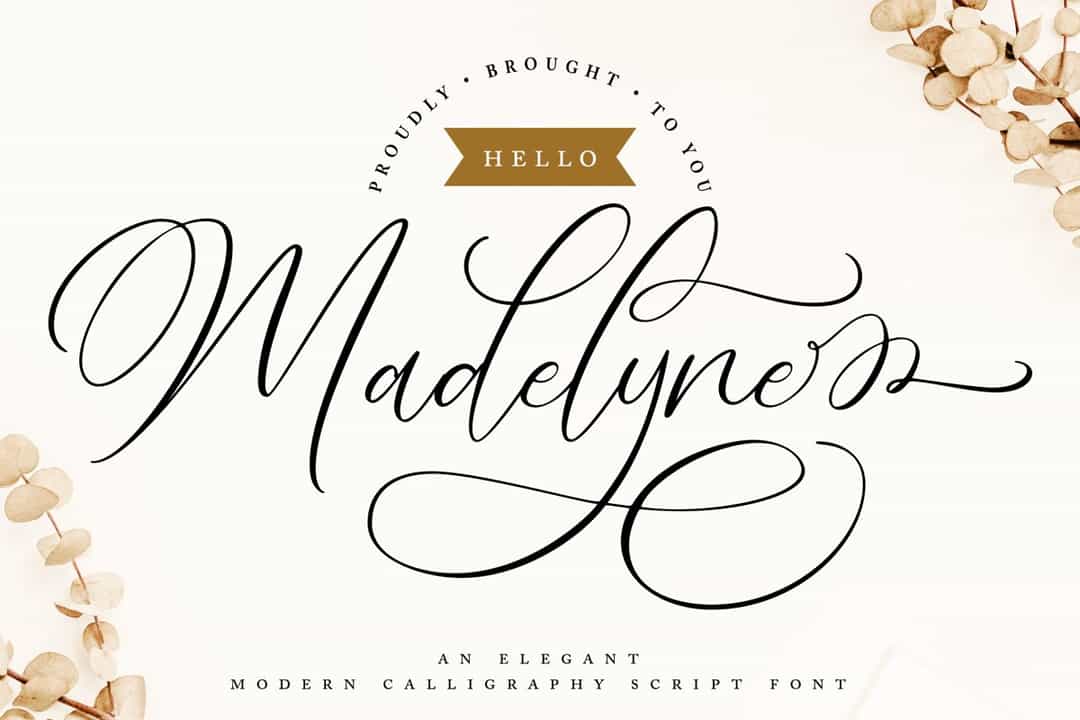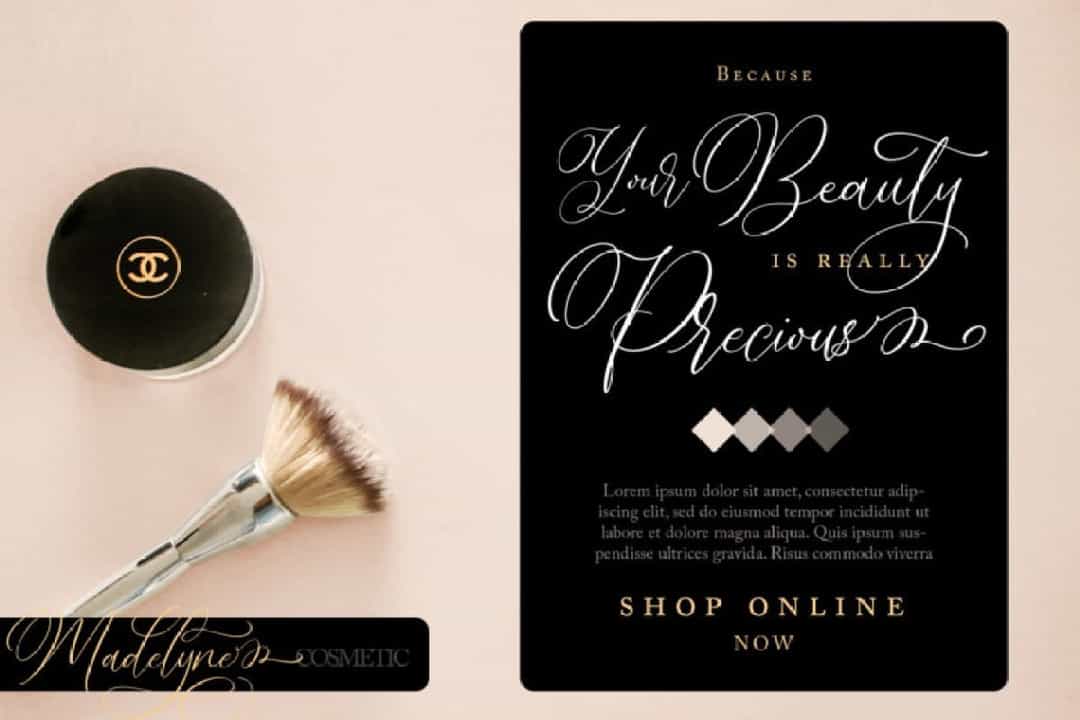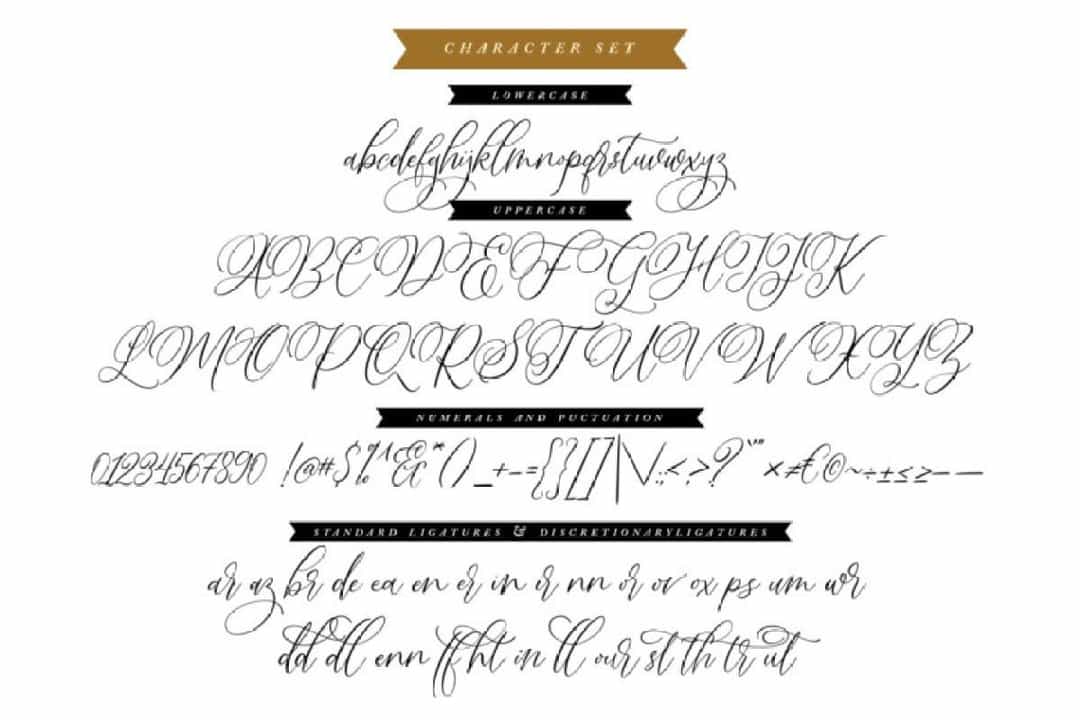
Hello Madelyne is a beautiful and stylish calligraphy font based on modern design suitable for wedding cards and other beauty related items such as logos, quotes, magazines and more. This font is a complete set of lower and uppercase letters, swash alternates and ligatures, international characters and numerals and punctuation marks.